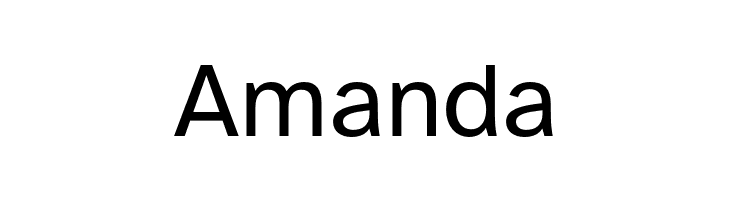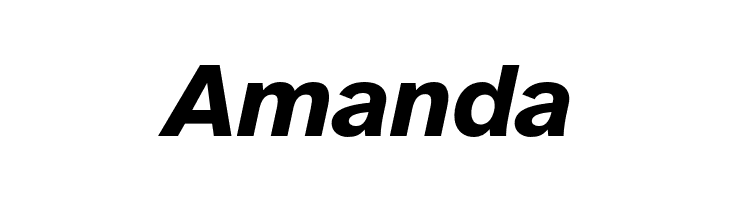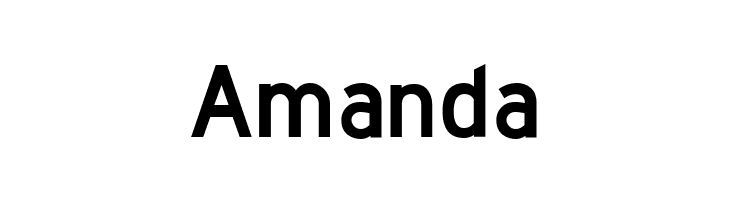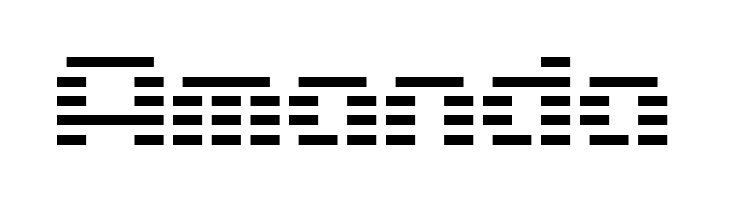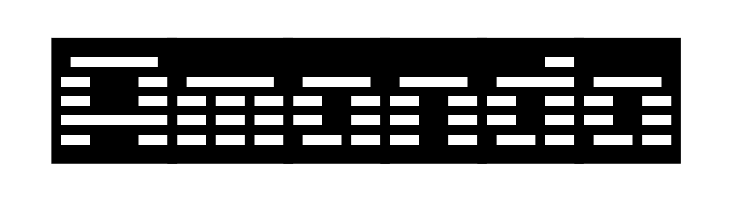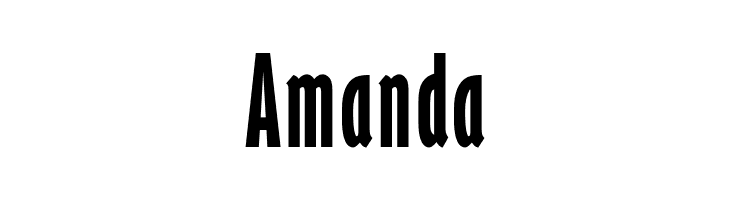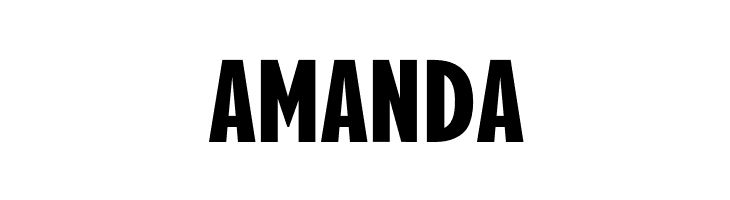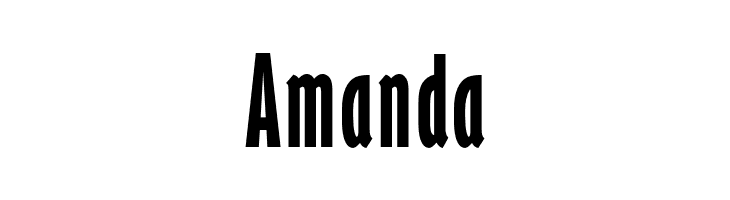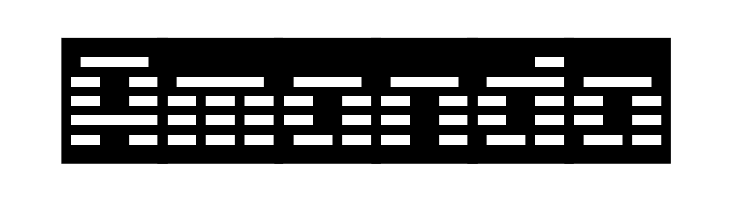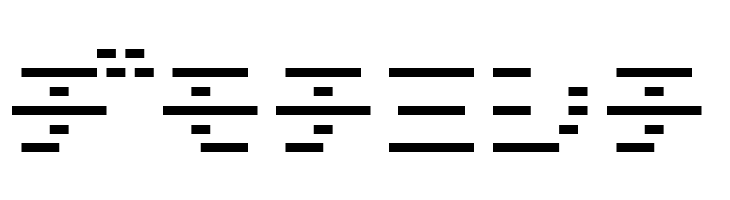
GibbyOpti-ExtraBold Font
A bold, geometric font with strong, thick strokes for impactful design.
Mal de Ojo Font
A bold, distressed font with a vintage and rugged aesthetic.
GibbyOpti-MediumCond Font
A modern sans-serif font with medium weight and clean lines.
GibranUT DemiBold Font
A classic serif font with bold, authoritative strokes and sharp serifs.
GIBATOWN Font
A bold, rugged, hand-drawn font with thick, blocky characters.
Comic Gibi Font
A playful, comic-style handwritten font with rounded, medium-thick strokes.
Comic Gibi Bold Italic Font
A bold, italicized font with a playful, comic book style.
Gibberish Font
A bold, jagged font with sharp edges and a dynamic, energetic style.
Comic Gibi Italic Font
A playful, comic-style handwritten font with bold, rounded strokes.
Gibbard_erc_01 Font
A bold, playful font with a distressed, artistic style.
Comic Gibi Bold Font
A bold, handwritten font with a playful, comic-like style.
Gibson Girls Font
A decorative dingbat set of illustrated women's heads in a vintage style.
Gib Brick Plox Font
A bold, geometric font with a pixelated, retro digital style.
Gib Italic Font Plox Font
A playful, handwritten cursive font with an italicized, informal style.
Gib Font Plox Font
A playful, handwritten font with a casual and dynamic style.
Funk Gibson DEMO Outline Font
A bold, playful outline font with a cartoonish style.
Gibrael Font
An elegant script font with ornate, flowing characters and intricate swashes.
Gibeth Font
A classic serif font with high contrast and sharp serifs, exuding elegance and sophistication.
Gibson walsh Font
A bold, dynamic script font with a playful, handwritten style.
Funk Gibson DEMO Regular Font